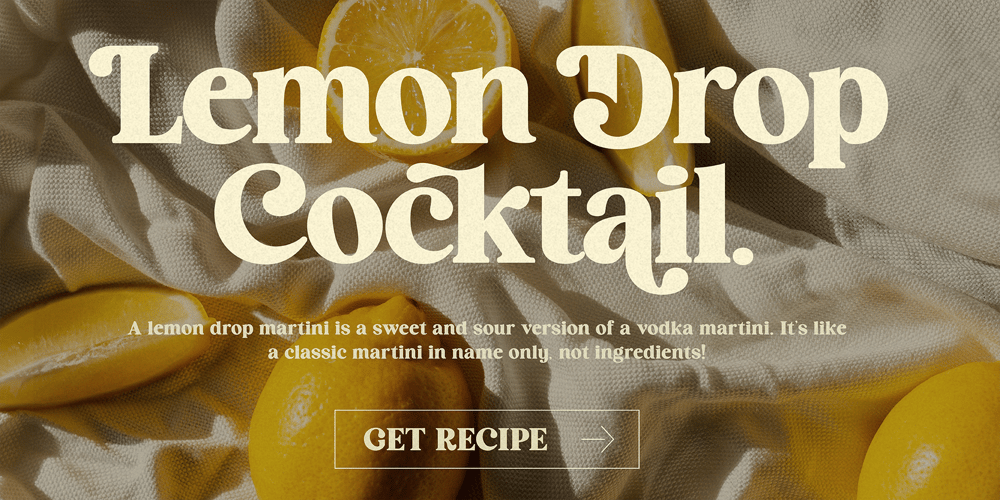
HV Cocktail Font Family was designed by Max Duy T. and published by Harmonais Visual. HV Cocktail contains 2 styles and family package options. Cocktail – elegant retro serif with an artistic touch. Specially designed for vintage, retro, elegant projects, perfectly suitable for creating simple, lifestyle designs such as logos, title, packaging, and more.